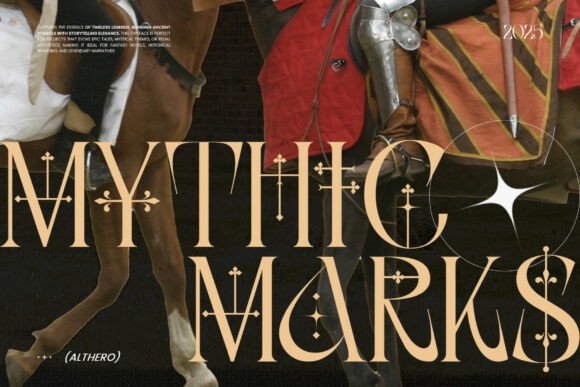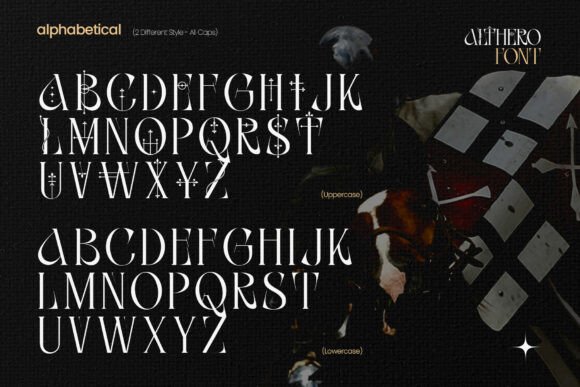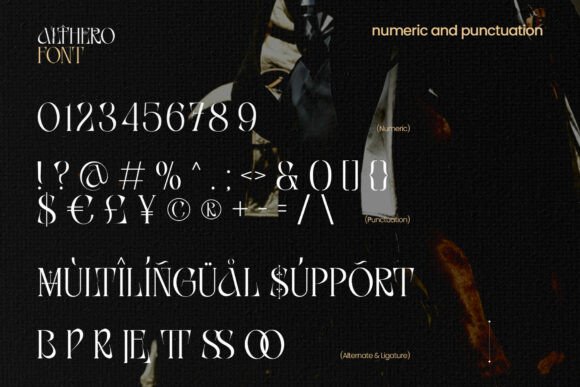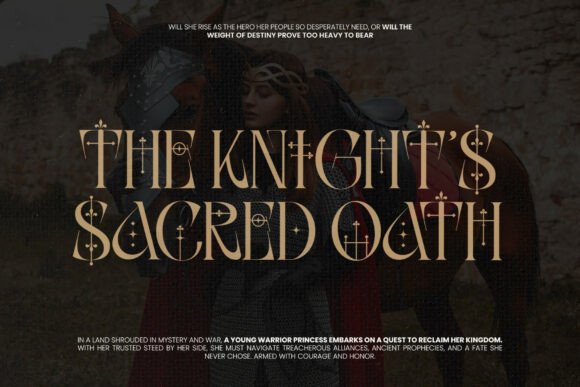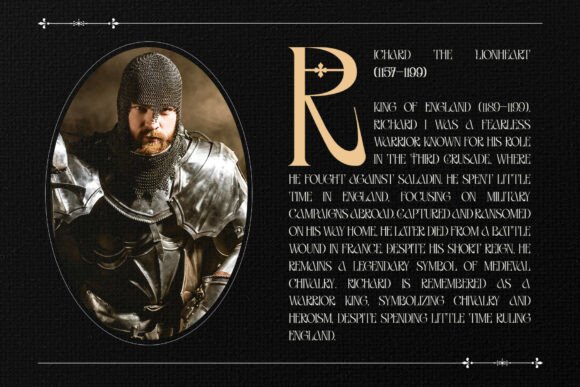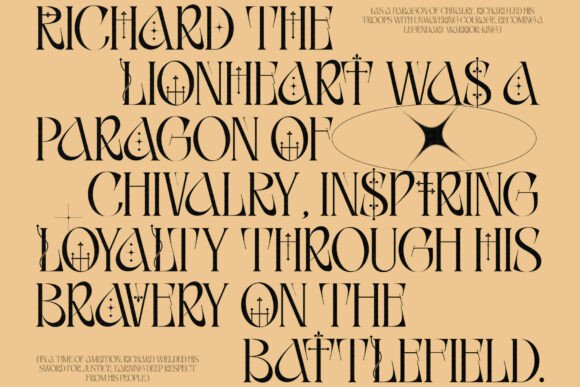
Introducing Althero Regular Font: A Regal Gothic Decorative Serif
Are you a designer, craftsperson, or enthusiast looking for a font that embodies the essence of medieval legends, heroic tales, and ancient manuscripts? Look no further than Althero Regular Font, a stunning gothic decorative serif font that exudes the glory of chivalry, epic kingdoms, and historical elegance.
Inspiration from the Past
Althero is inspired by the rich history of medieval times, where tales of bravery, honor, and nobility were etched into stone and parchment. This font captures the essence of that era, with its tall form, sharp serifs, and ornamental details that evoke the grandeur of ancient manuscripts and illuminated texts.
Althero Regular Font boasts a range of distinctive design characteristics that set it apart from other fonts. Its tall, statuesque form gives it a commanding presence, while its sharp serifs add a touch of sophistication and elegance. The font’s ornamental details, such as intricate flourishes and embellishments, add a level of luxury and refinement, making it perfect for high-end branding, book covers, and editorial projects.
Althero Regular Font is an incredibly versatile font that can be used for a wide range of creative projects. Here are some ideas to get you started:
- Book Covers: Add a touch of classic elegance to your book covers with Althero’s regal, gothic-inspired design.
- Branding: Use Althero to create a powerful brand identity that evokes the values of tradition, heritage, and nobility.
- Fantasy Posters: Transport your audience to a world of fantasy and adventure with Althero’s epic, heroic feel.
- Themed Editorials: Add a touch of historical sophistication to your editorial projects with Althero’s ornate, decorative details.
Why Choose Althero Regular Font?
So why choose Althero Regular Font for your next creative project? Here are just a few compelling reasons:
- Unique Design: Althero’s distinctive design sets it apart from other fonts, ensuring your project stands out from the crowd.
- High-Quality Typography: With its sharp serifs and ornamental details, Althero delivers exceptional typography that honors timeless storytelling and noble traditions.
- Versatility: Althero can be used for a wide range of creative projects, from book covers to branding and editorial work.
- Elegance and Sophistication: Althero’s regal, gothic-inspired design adds a level of elegance and sophistication to any project.
Althero Regular Font is a truly exceptional font that embodies the essence of medieval legends, heroic tales, and ancient manuscripts. With its unique design, high-quality typography, and versatility, it’s the perfect choice for designers, craftspersons, and enthusiasts looking to add a touch of historical elegance to their creative projects. Whether you’re working on a book cover, branding project, or editorial piece, Althero Regular Font is sure to deliver a powerful presence that honors timeless storytelling and noble traditions.
Get Ready to Create Something Epic